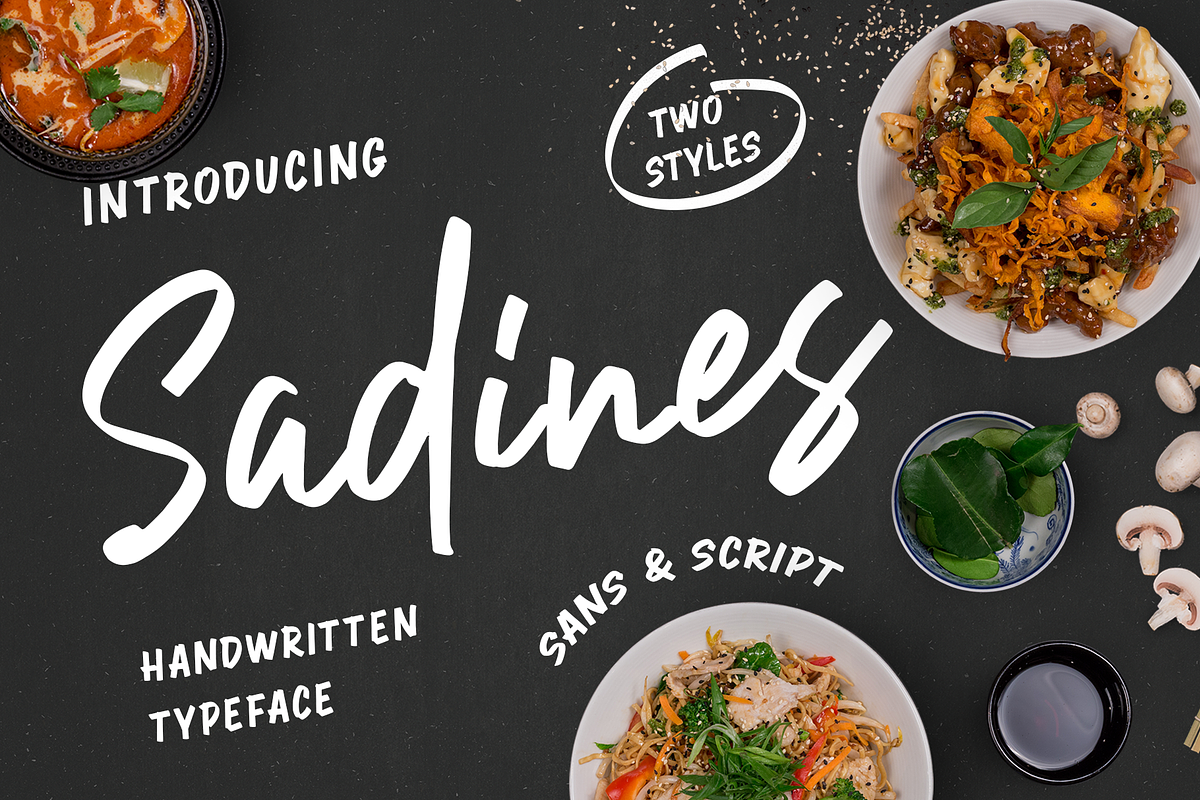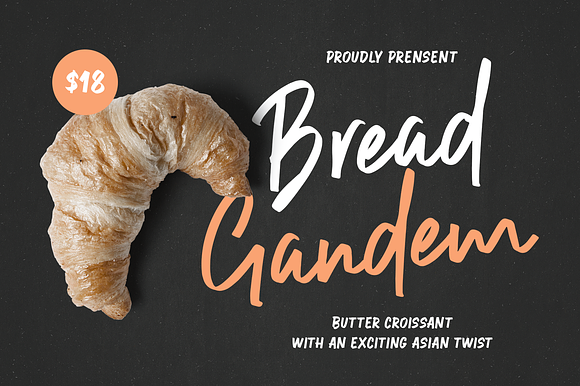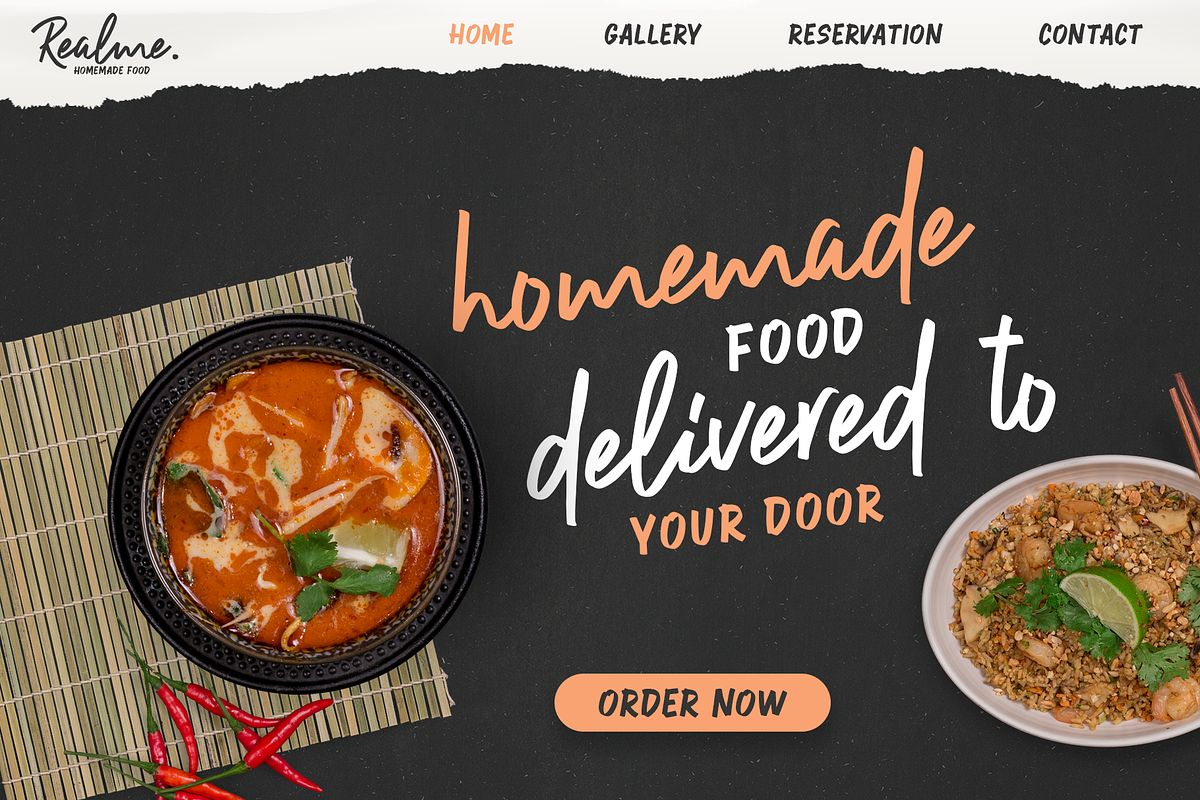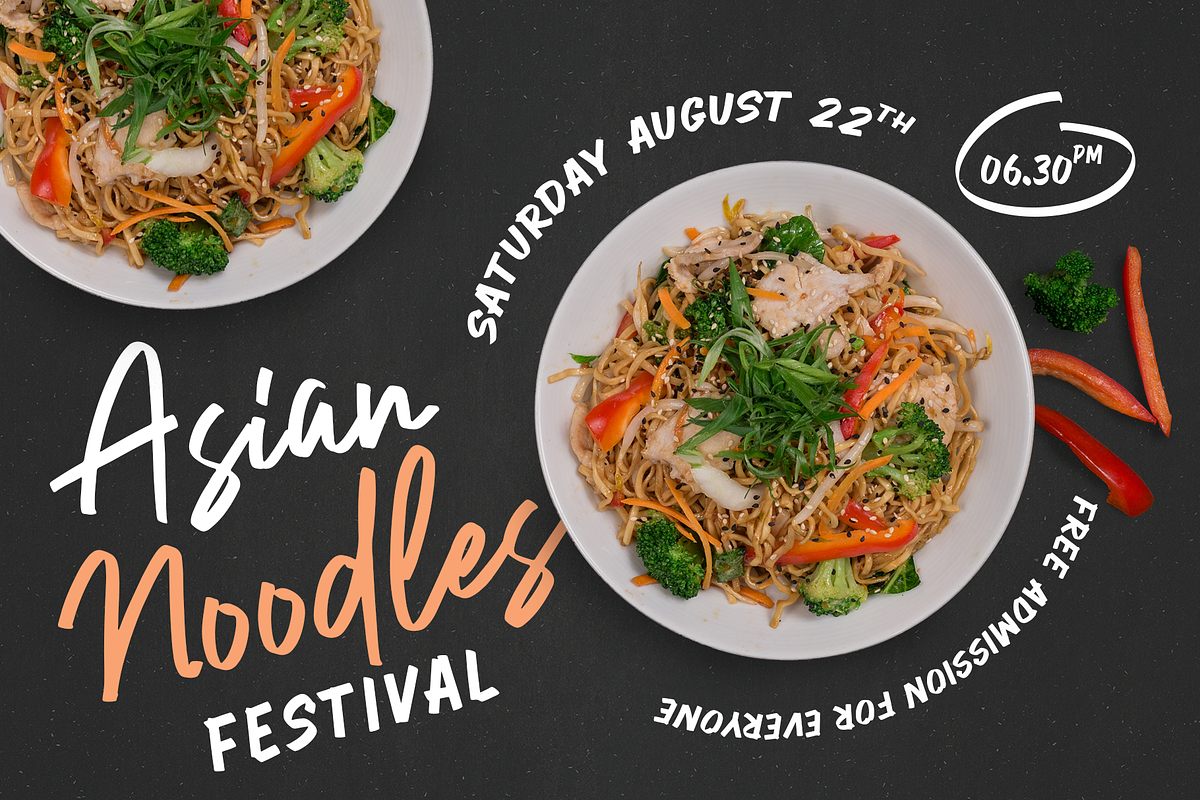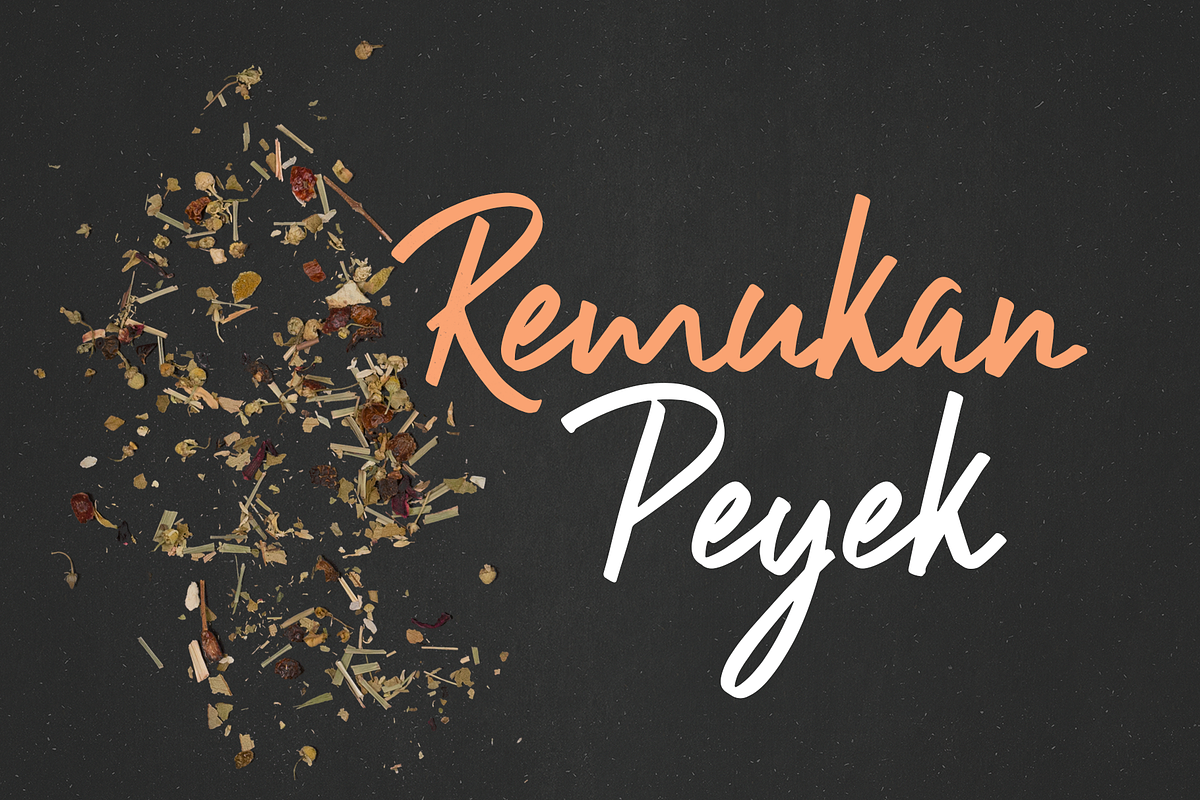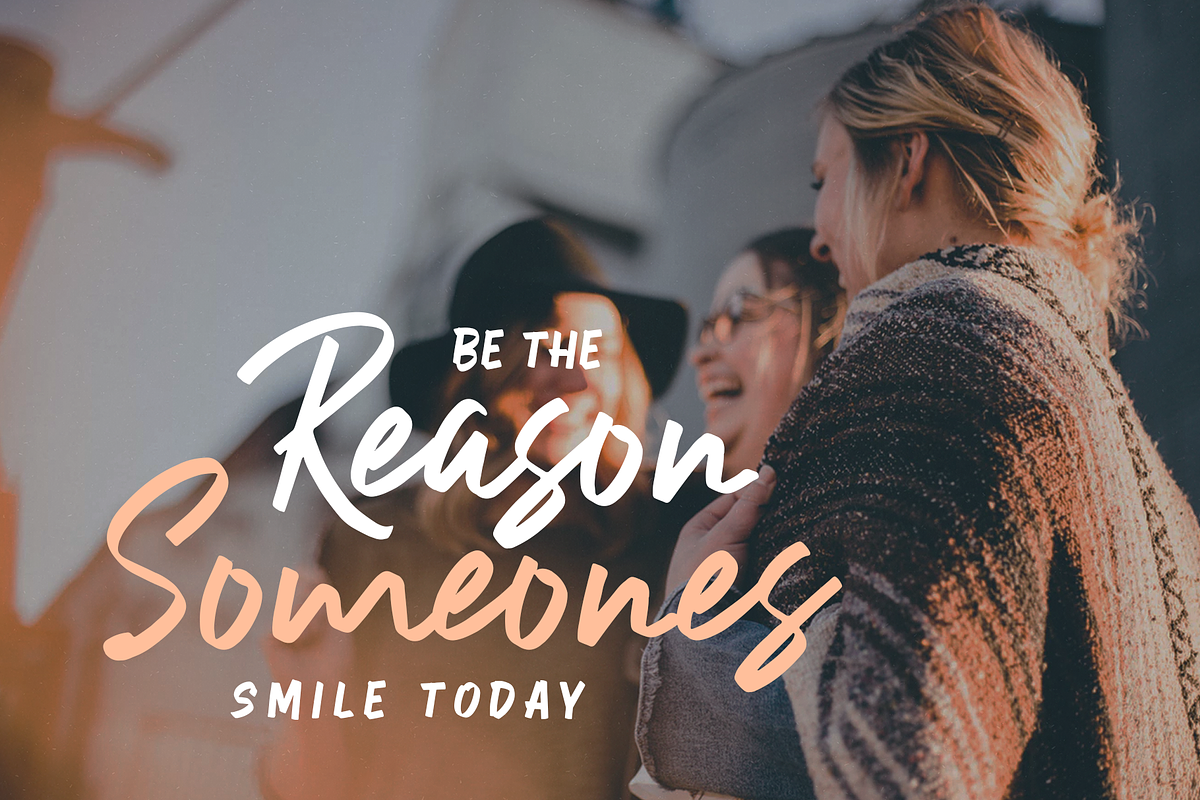
Sadines - Font Duo
Sadines is a handwritten typeface, though wild and irregular styles have a high level of legibility. Made to provide an authentic hand look but still maintain its legibility and clarity. Available in two different styles, script and sans, it will be perfect if both are combined for creative projects.
Sadines very suitable to use on many of your design projects such as Headlines, Signage,restaurant menus , Book Covers, Invitation, Packaging, Logotype and more.
Sadines - Font Duo by A.Budianto fits naturally into Branding, posters, packaging, typography.